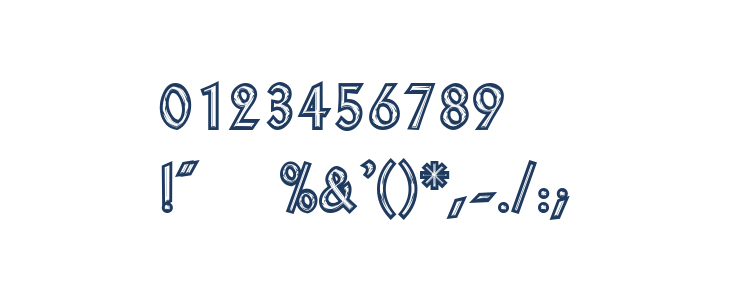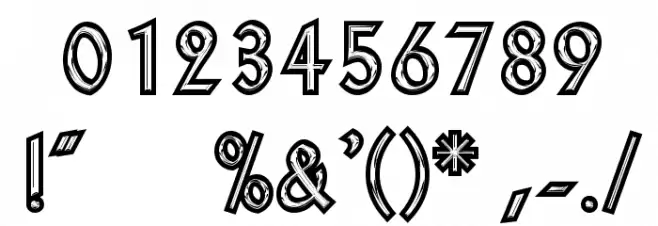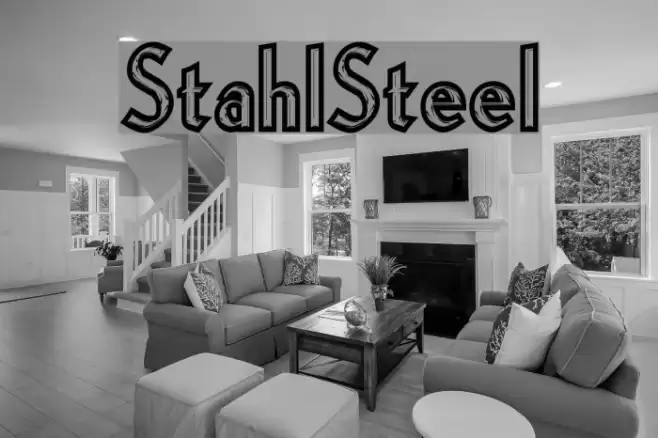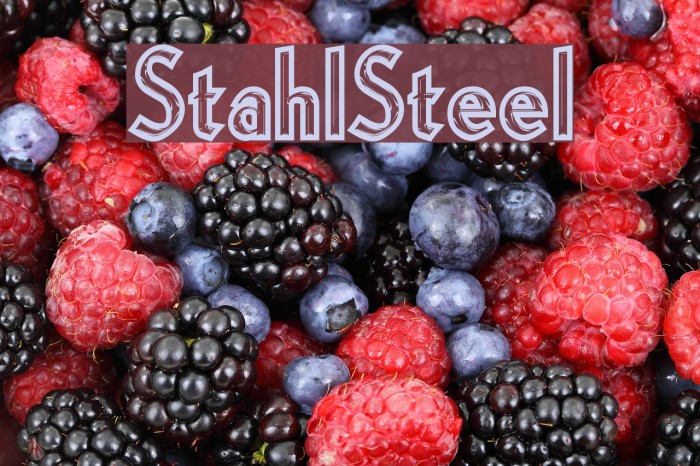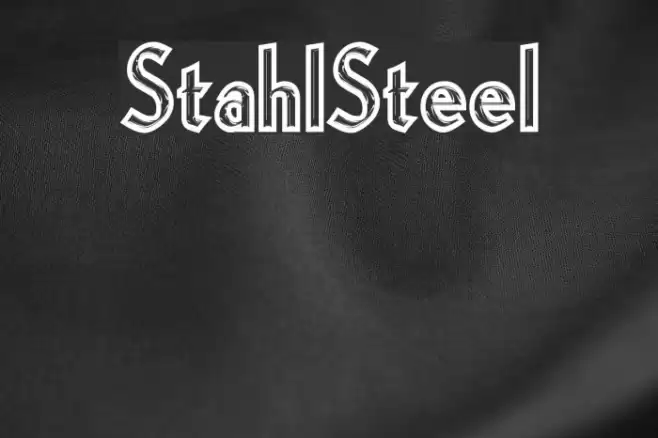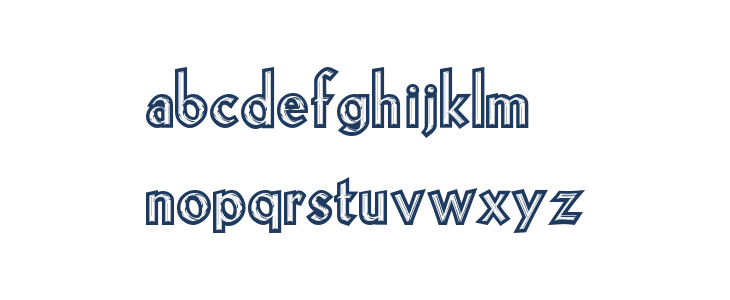
StahlSteel Font
StahlSteel Description
This font features a bold, industrial design with a three-dimensional effect created by its shadowed outline. The uppercase letters are angular and geometric, giving a sense of strength and modernity. The lowercase letters maintain the same robust style, ensuring consistency across different text cases. Numbers and special characters are designed with the same attention to detail, making them stand out with their bold presence. This font is perfect for projects that require a strong visual impact, such as posters, logos, or branding materials.
| Proposed Projects | Ideal for posters, logos, branding, and any design needing a strong visual impact. |